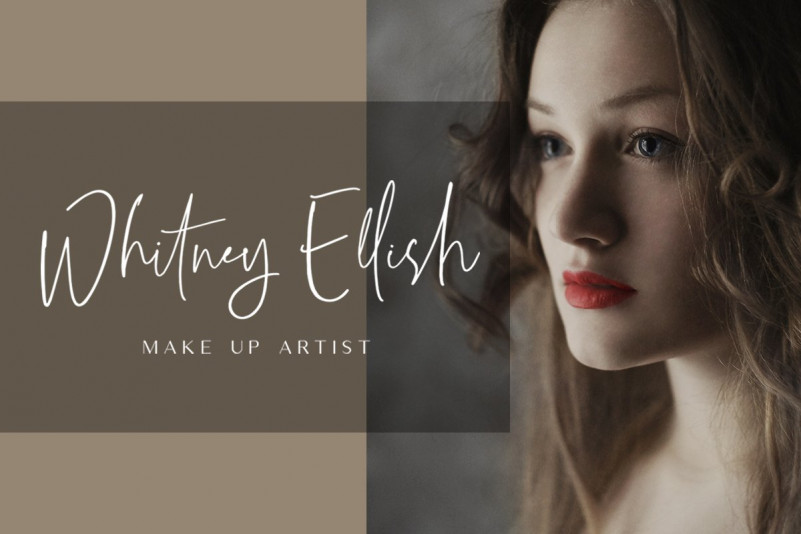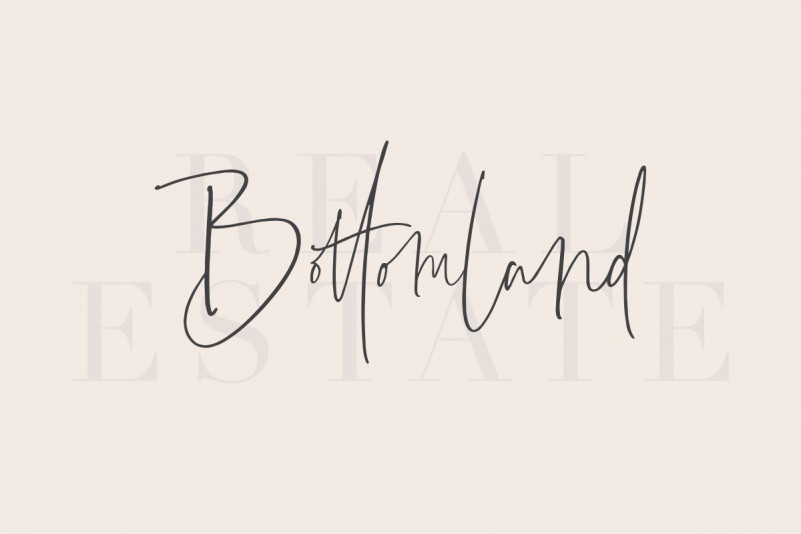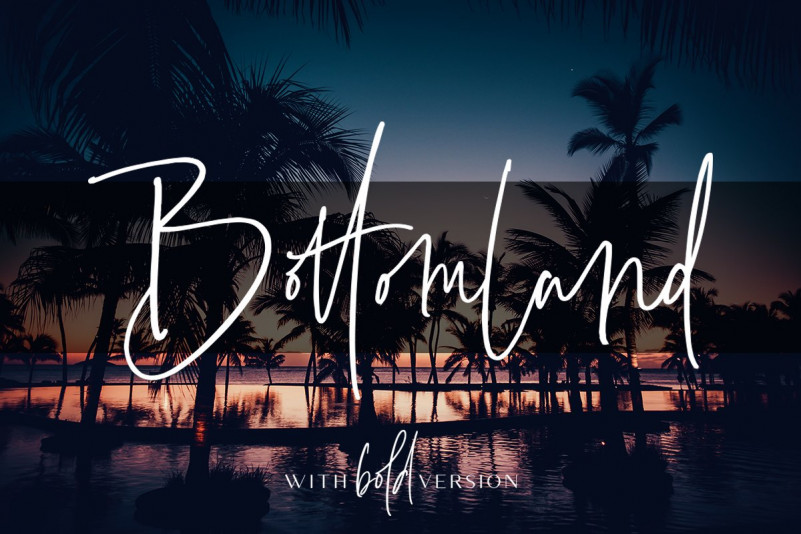
Bottomland Signature Font
Hi Font Lovers! This is a stylish modern handwritten font with casual chic flair. Presenting Bottomland Font. This font combines stylish letter shapes with contemporary twist. It’s the perfect fit for all luxury projects, such as elegant logos, printed quotes, lovely wedding invitation cards, social media headers, product packaging and a lot more!
It includes full set of elegant uppercase and lowercase letters, multilingual symbols, numerals, punctuation. The font has smooth wet ink texture, so would be perfect for all types of printing techniques+you can do embroidery, laser cut, gold foil etc.